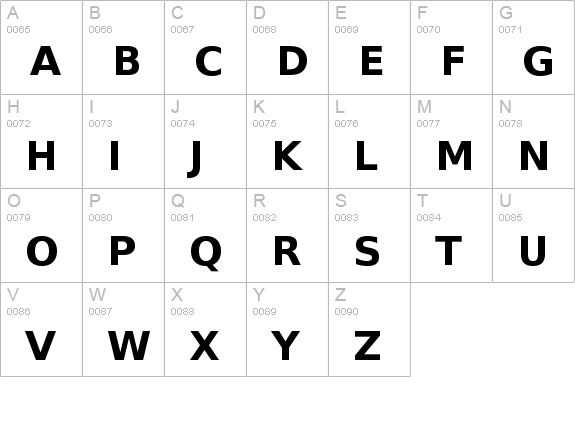
Prima Sans Bold is a strong, high-contrast variant in the Prima typeface family \xE2\x80\x94 well suited to headlines, attention-grabbing titles, and strong calls-to-action.
Prima Sans Bold is a modern and versatile typeface that exudes strength and sophistication. With its clean lines and bold strokes, this font is perfect for making a statement in any design project. Whether you're creating a striking headline or crafting a sleek logo, Prima Sans Bold will surely grab attention and leave a lasting impression. The best part? Prima Sans Bold is completely free to download at FontsMarket.com. This means you can access this high-quality font at no cost, allowing you to elevate your designs without breaking the bank. Don't miss out on this fantastic opportunity to add Prima Sans Bold to your font collection and take your projects to the next level. Download it today and unleash the power of this stunning typeface!